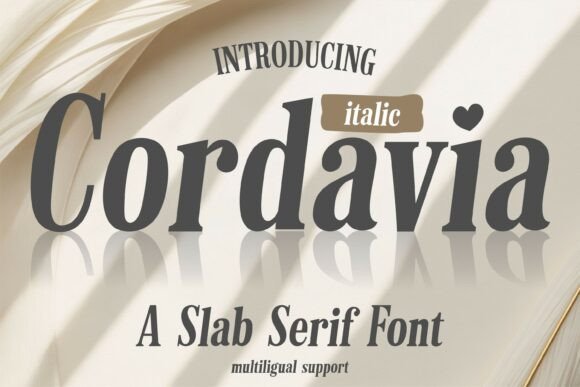
Cordavia Italic Font: Elevate Your Designs with Elegance and Charm
Cordavia Italic is a stunning slab serif font that brings a touch of warmth and personality to your designs. With its soft curves, pronounced serifs, and natural italic flow, this typeface offers the perfect balance between sophistication and charm. In this article, we’ll explore the features and benefits of Cordavia Italic, and how it can elevate your creative projects.
What is Cordavia Italic Font?
Cordavia Italic is a beautiful slab serif font designed to bring a sense of elegance and charm to your designs. Its soft curves and pronounced serifs give it a unique and distinctive look that’s perfect for a wide range of applications, from branding and packaging to greeting cards and social media graphics.
Key Features of Cordavia Italic
- Soft Curves and Pronounced Serifs: Cordavia Italic features soft curves and pronounced serifs that give it a unique and elegant look.
- Natural Italic Flow: The font’s natural italic flow adds a touch of sophistication and charm to your designs.
- Uppercase and Lowercase Letters: Cordavia Italic includes both uppercase and lowercase letters, making it perfect for a wide range of applications.
- Numbers, Punctuation, and Multilingual Support: The font also includes numbers, punctuation, and multilingual support, making it a versatile choice for designers.
- Unique Heart Dot on the āiā: The font’s unique heart dot on the āiā adds a subtle, romantic accent that’s perfect for uplifting and heartfelt messaging.
Use Cases for Cordavia Italic
Cordavia Italic is a versatile font that can be used for a wide range of applications, including:
- Branding: Use Cordavia Italic to create elegant and sophisticated brand identities that stand out from the crowd.
- Fashion Quotes: The font’s unique look and feel make it perfect for fashion quotes and typography.
- Packaging: Cordavia Italic is ideal for packaging design, adding a touch of elegance and sophistication to your products.
- Greeting Cards: The font’s natural italic flow and soft curves make it perfect for greeting cards and invitations.
- Logos: Use Cordavia Italic to create unique and memorable logos that stand out from the crowd.
- Social Media Graphics: The font’s elegant look and feel make it perfect for social media graphics and typography.
Cordavia Italic is a stunning slab serif font that brings a touch of elegance and charm to your designs. With its soft curves, pronounced serifs, and natural italic flow, this typeface offers the perfect balance between sophistication and charm. Whether you’re creating digital art or printable products, Cordavia Italic is the perfect choice for designers looking to elevate their creative projects.
- What is Cordavia Italic?: Cordavia Italic is a slab serif font designed to bring a sense of elegance and charm to your designs.